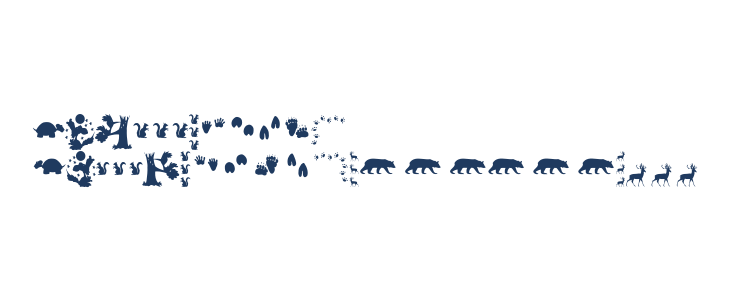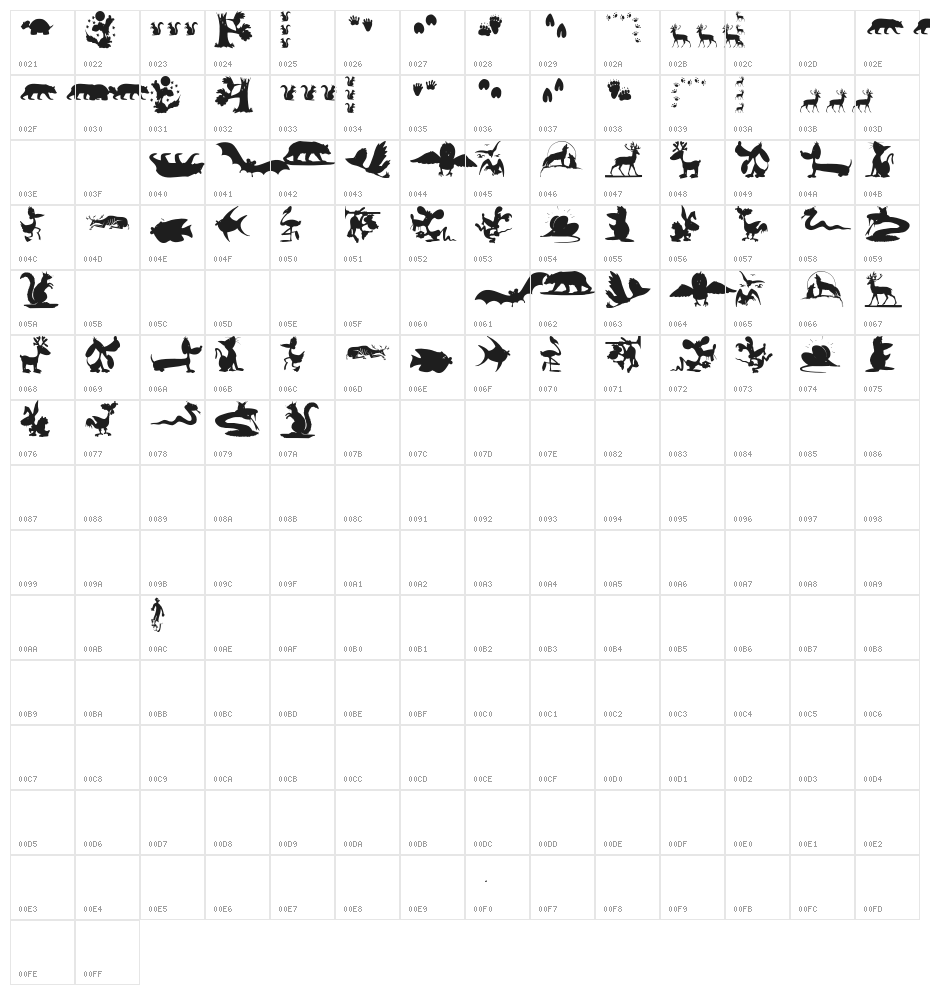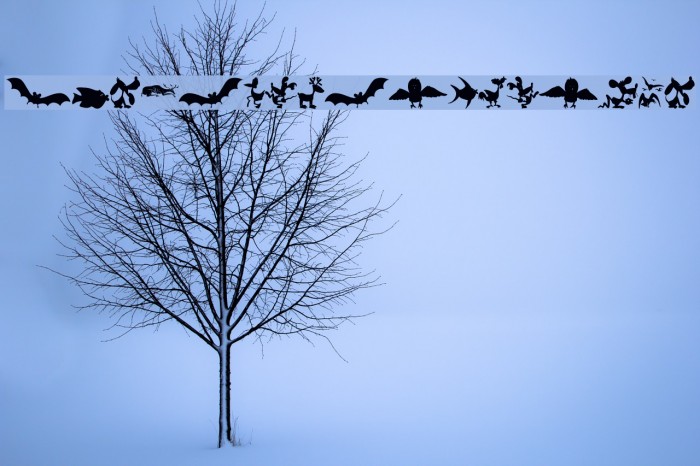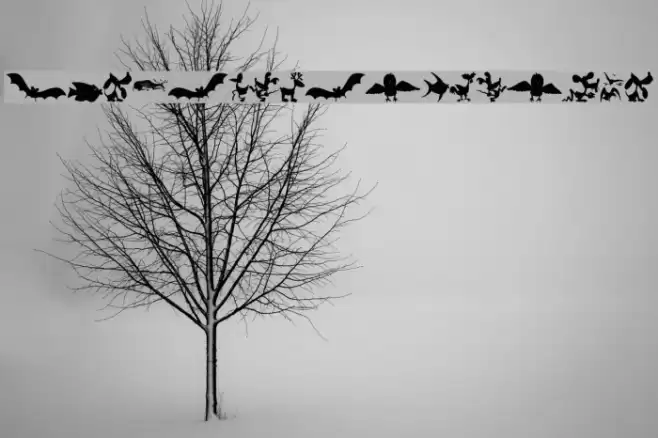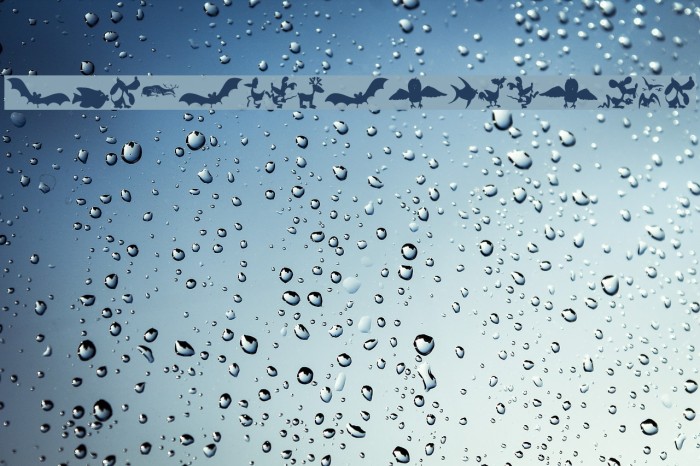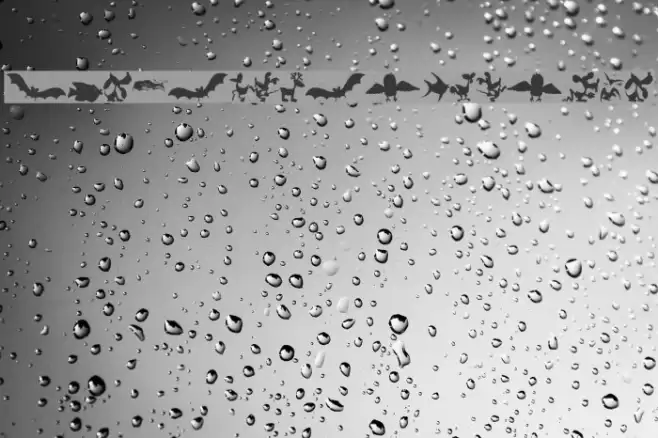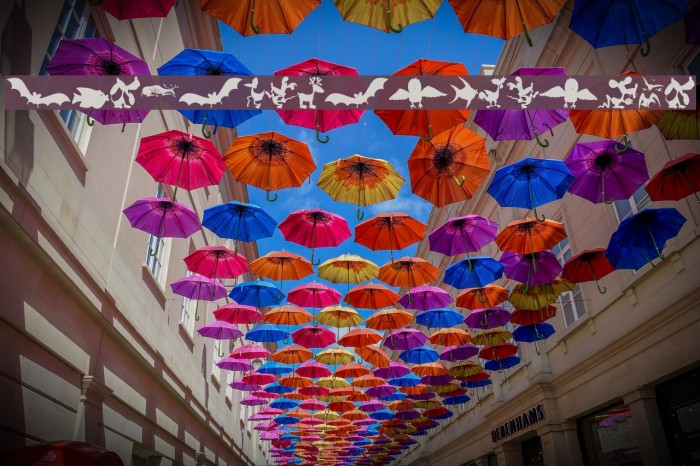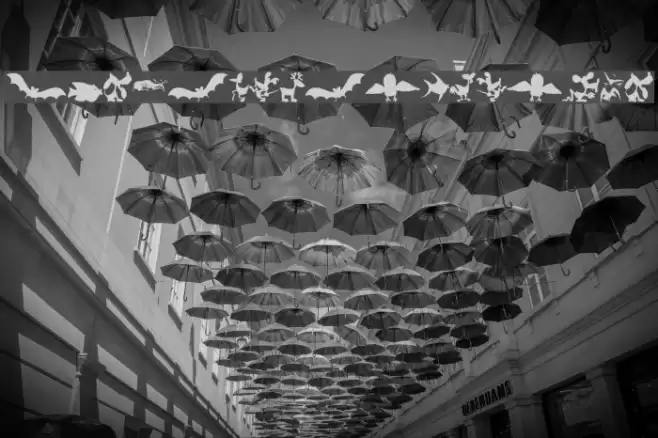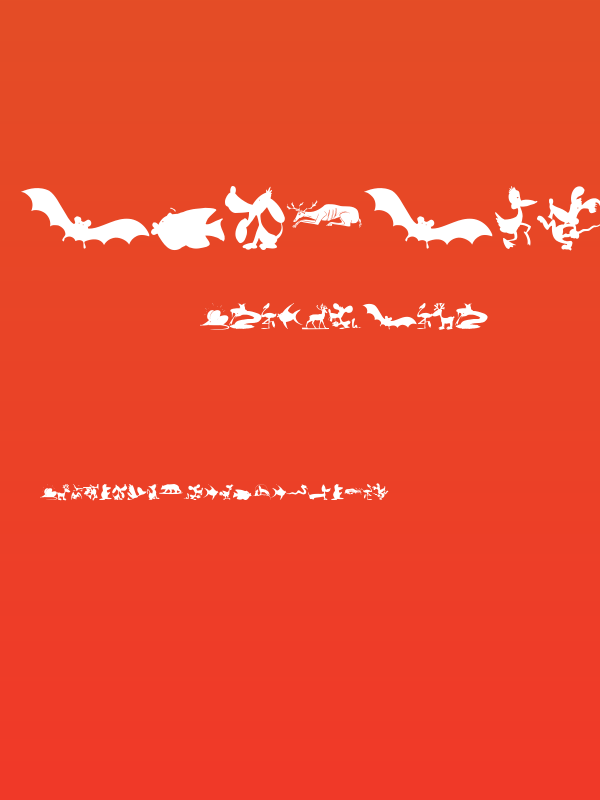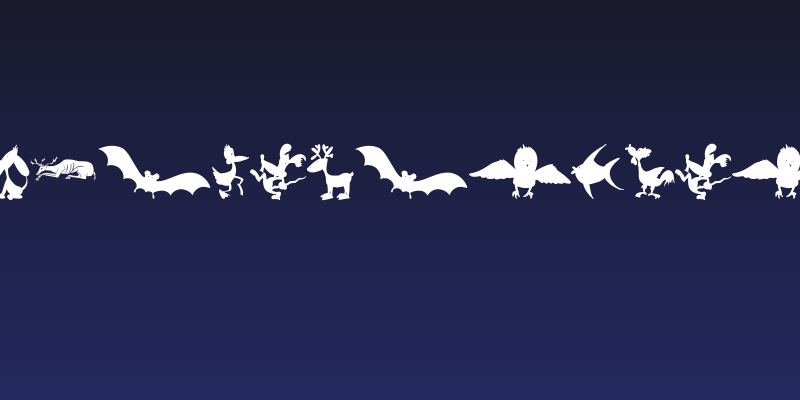
AnimalShadowsDrei Font
AnimalShadowsDrei Description
A decorative font composed of animal silhouettes and paw prints, featuring a variety of creatures such as bats, birds, deer, fish, squirrels, snakes, and more, along with animal tracks and nature elements. Each character is represented by a unique animal or related motif, rendered in solid black with playful and whimsical shapes.
| Overall Style | Decorative, Whimsical, Playful |
| Use Case | Logos, Headlines, Posters, Themed graphics |
| Proposed Projects | ChildrenΓ’β¬β’s books, educational materials, wildlife posters, nature-themed invitations, creative branding, scrapbooking. |